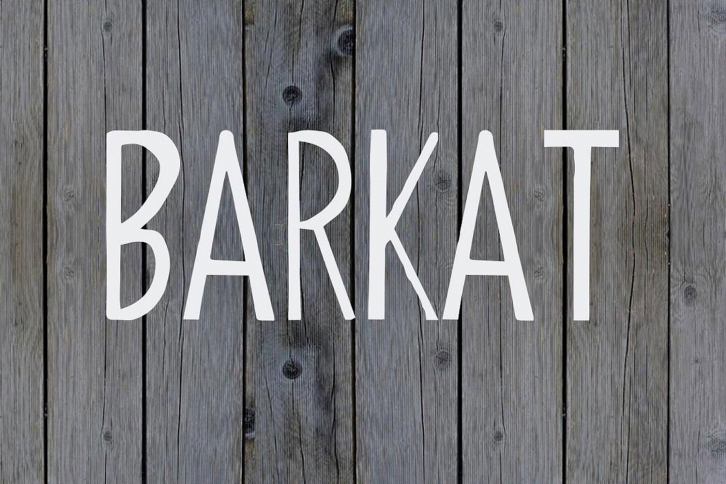
Barkat Calligraphy is a trendy and unique font with an authentic style. It was designed by Creativetacos and it's a great choice for creative people who need such a font. It was released on May 18, 2017 and the file size is 1.5 MB. Barkat Calligraphy will add an organic vibe to any design idea!